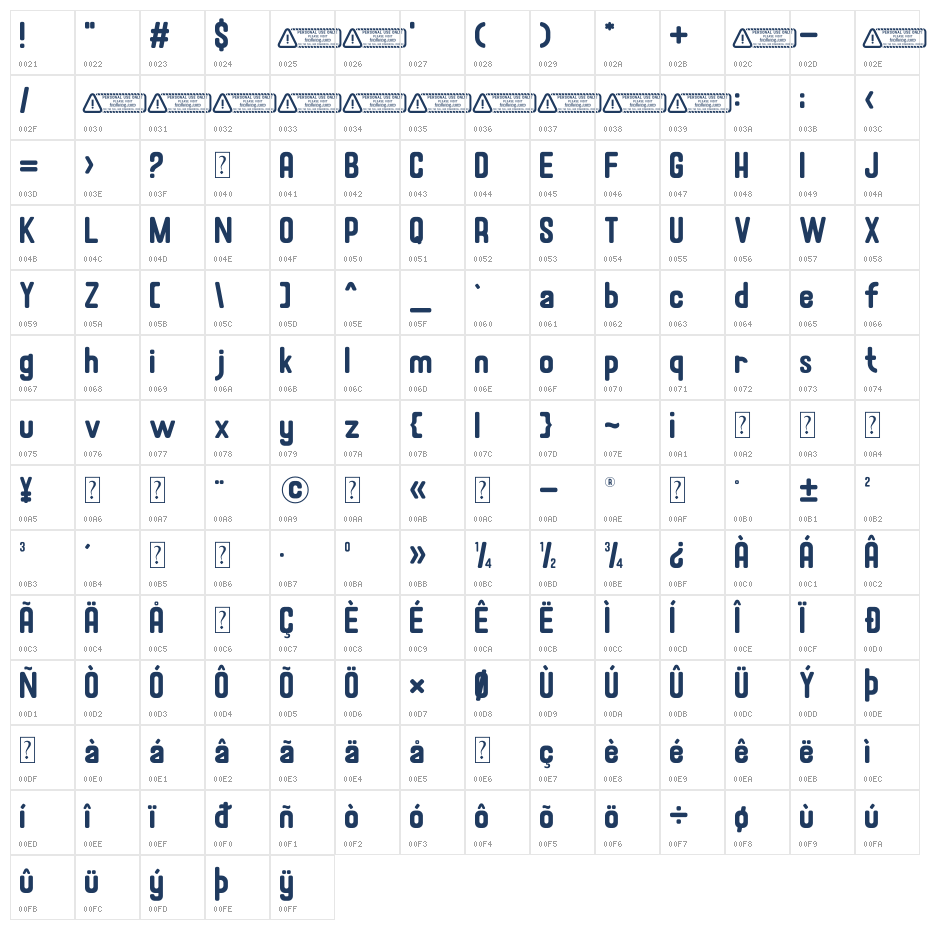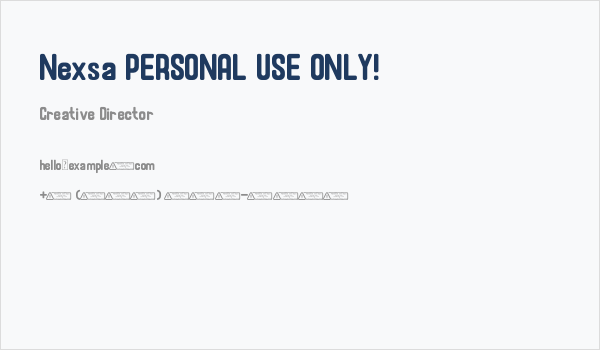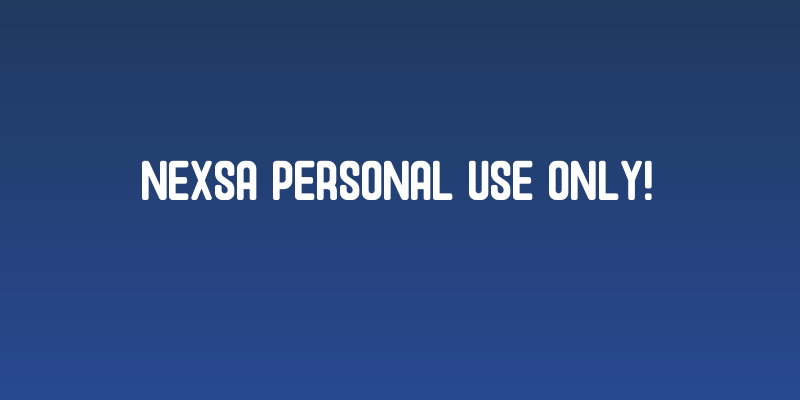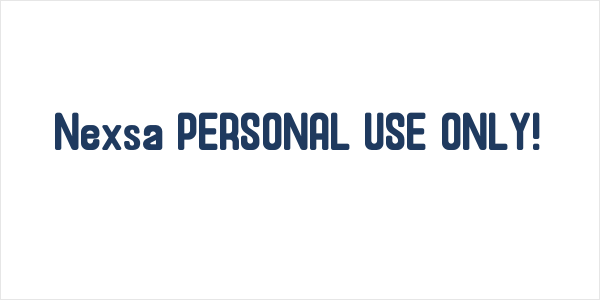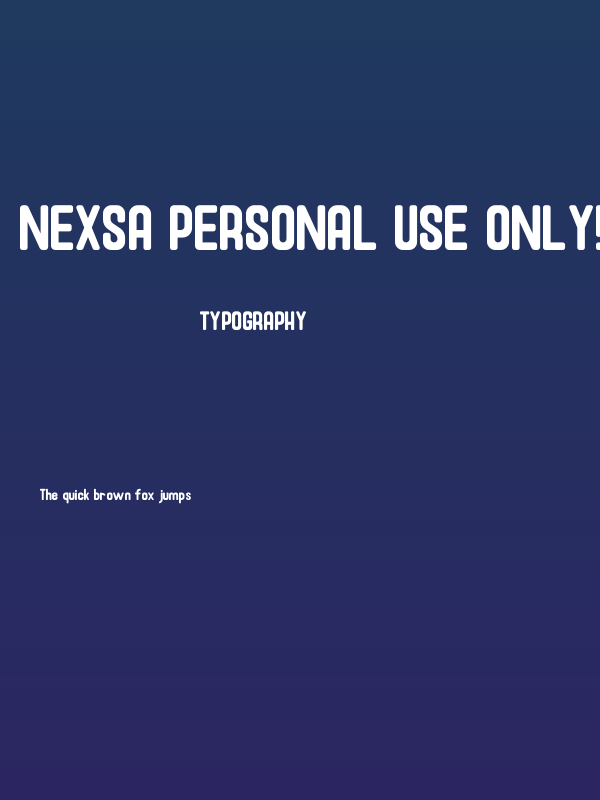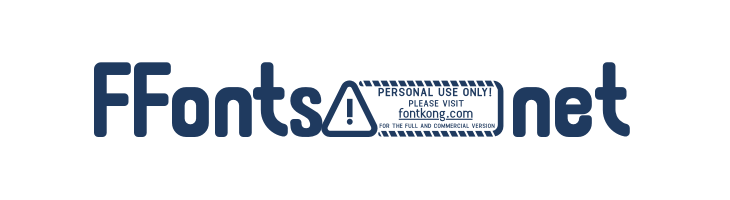
Nexsa PERSONAL USE ONLY! Font
Nexsa PERSONAL USE ONLY! Description
Bold, rounded, sans-serif font with uniform stroke width and slightly condensed letterforms.
| Overall Style | Modern, Friendly |
| Use Case | Headlines, Body text, Logos |